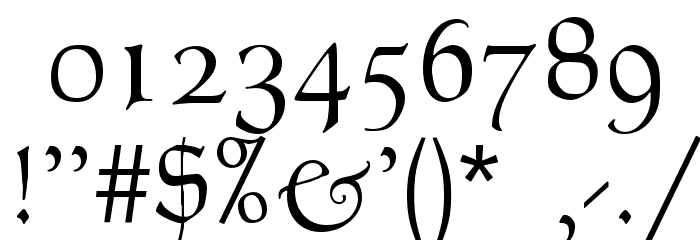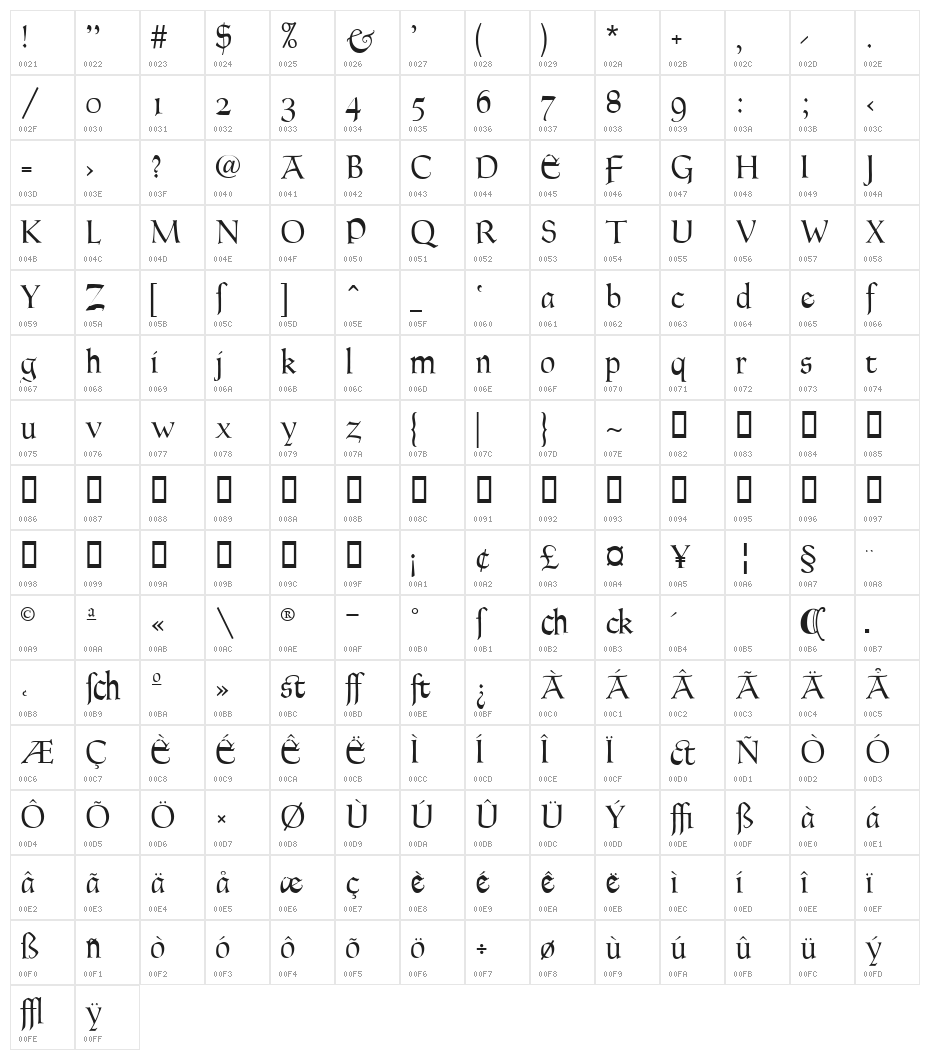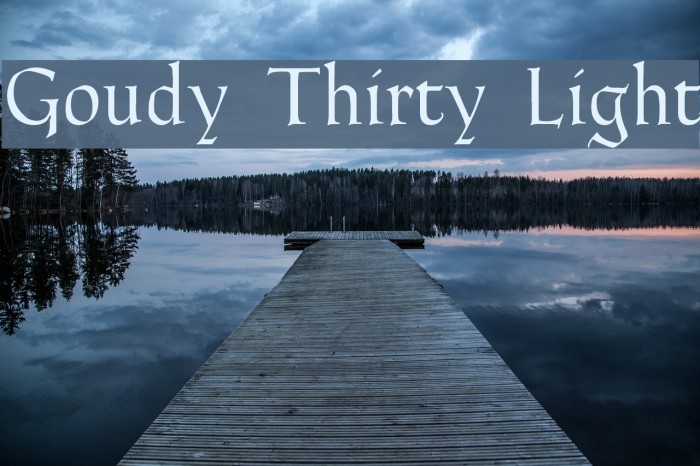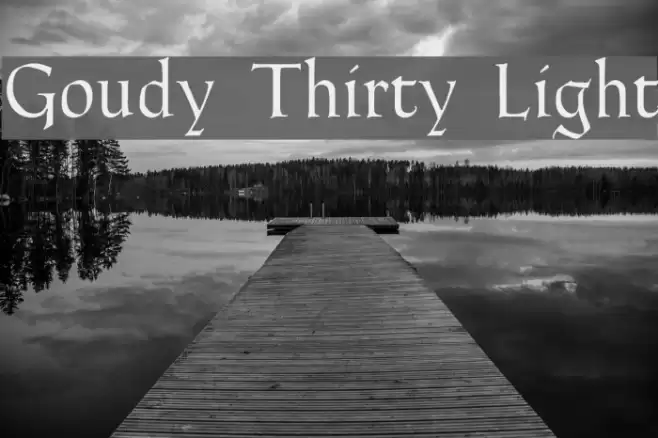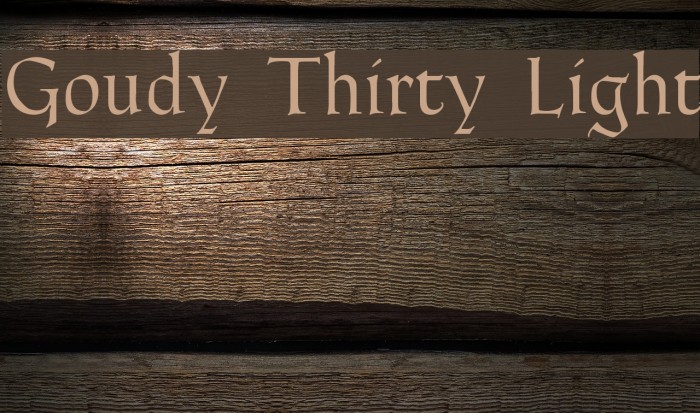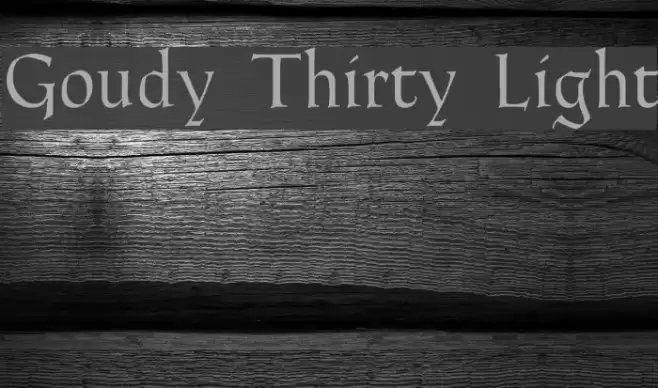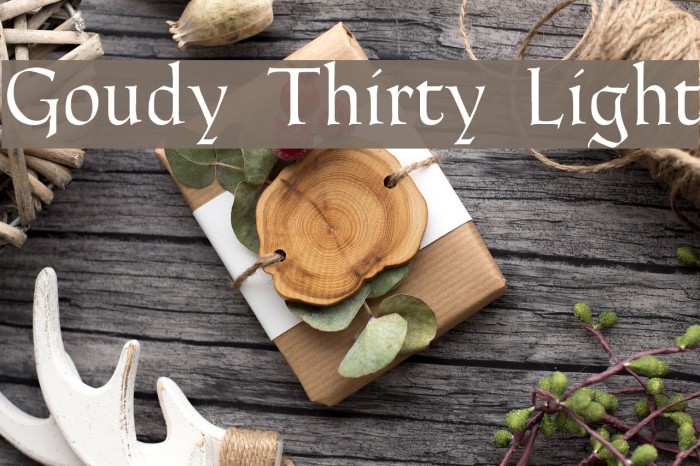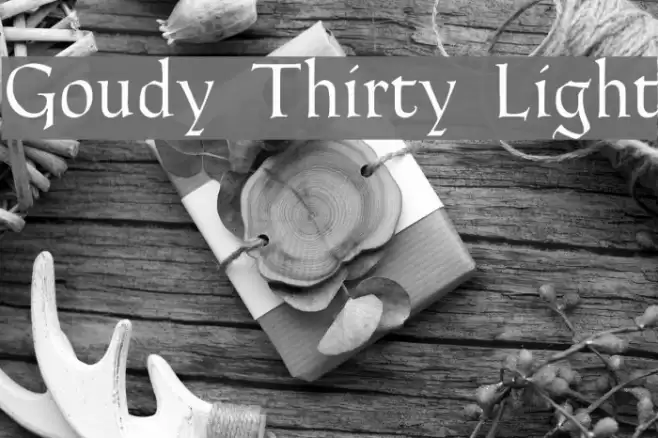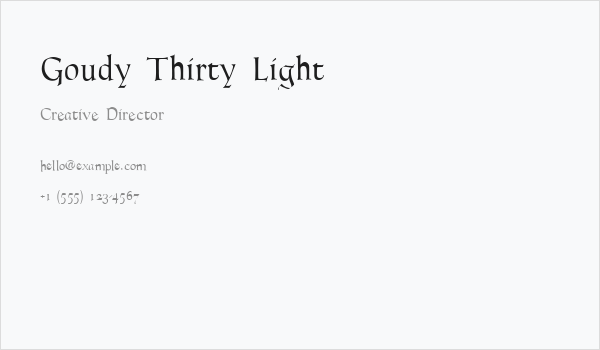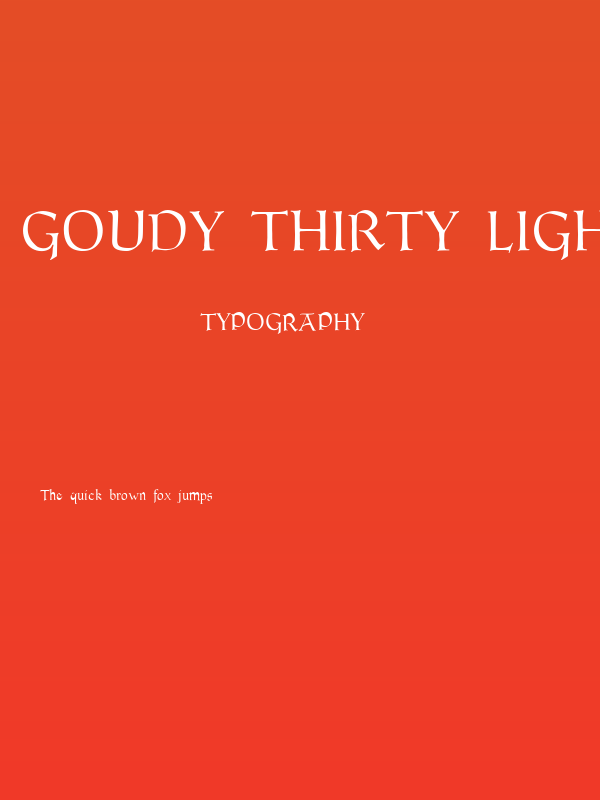
Goudy Thirty Light Font
Goudy Thirty Light Description
This font features a classic serif style with elegant, flowing lines and a slightly calligraphic influence. The uppercase letters are distinct with sharp serifs and a refined structure, while the lowercase letters maintain a consistent rhythm and balance. The numerals are clear and traditional, complementing the overall aesthetic. Special characters are designed with the same attention to detail, making them harmonious with the rest of the typeface. The font exudes a timeless quality, suitable for formal and sophisticated applications.
| Proposed Projects | Ideal for book covers, formal invitations, branding for luxury products, and editorial design. |